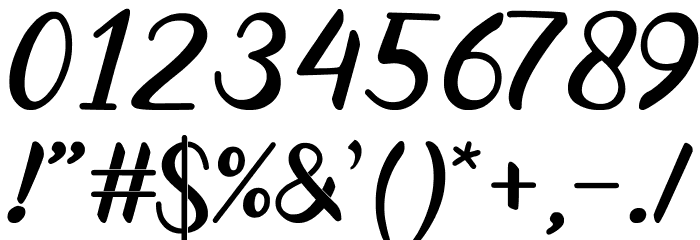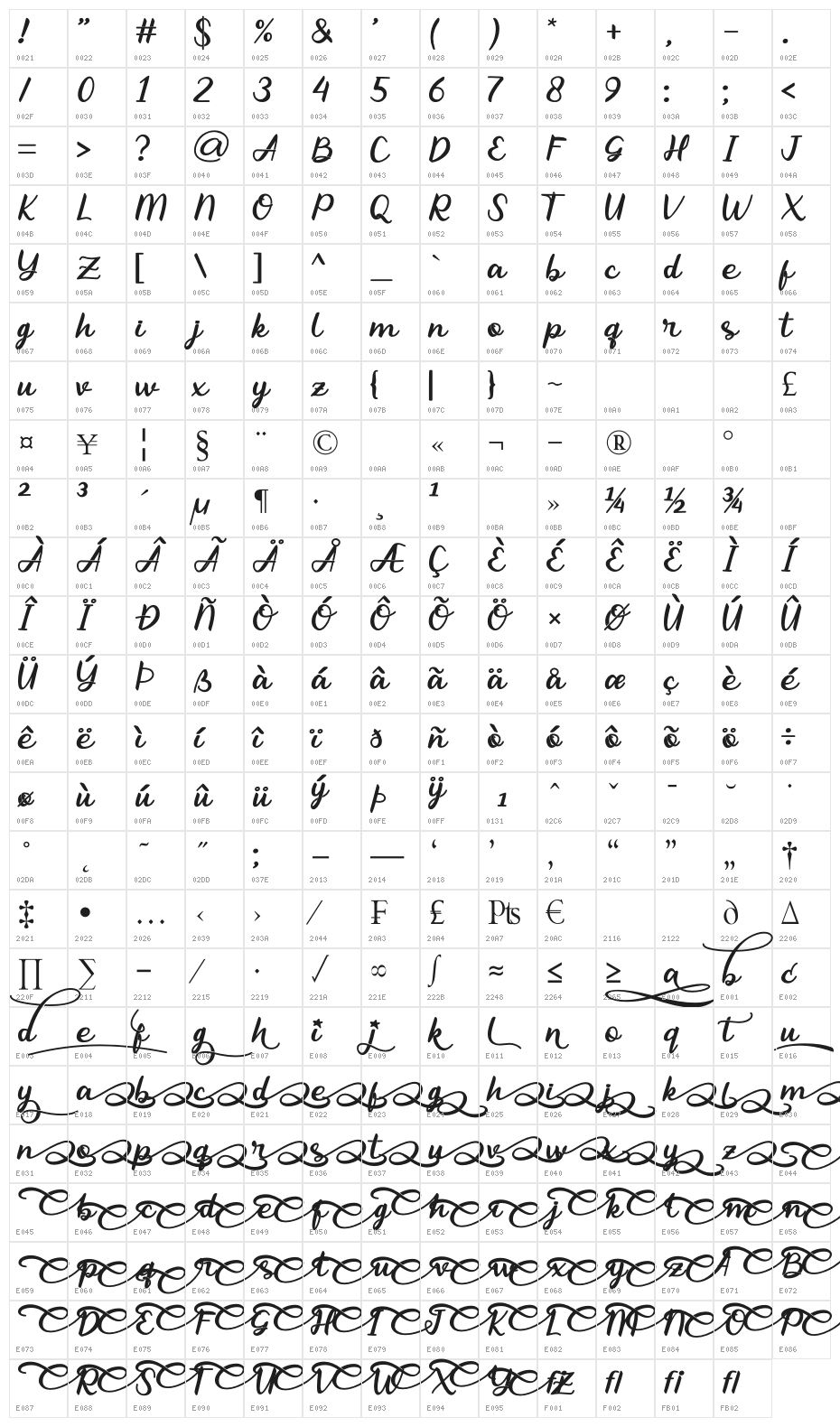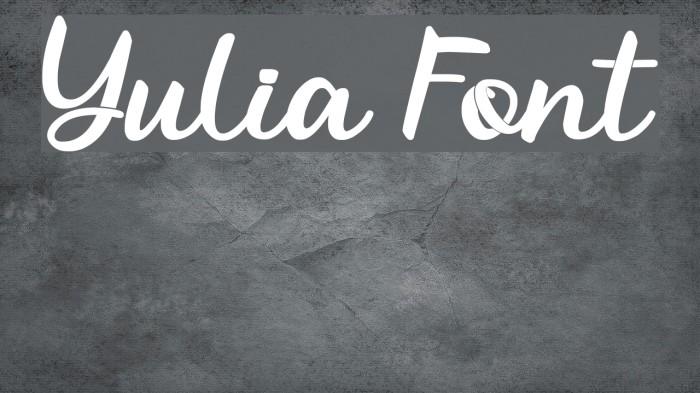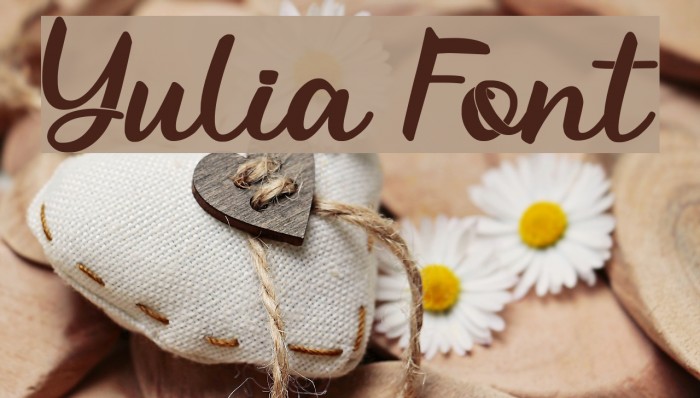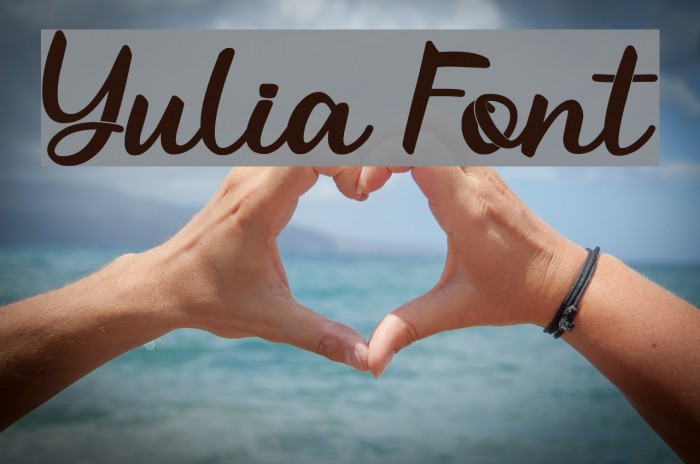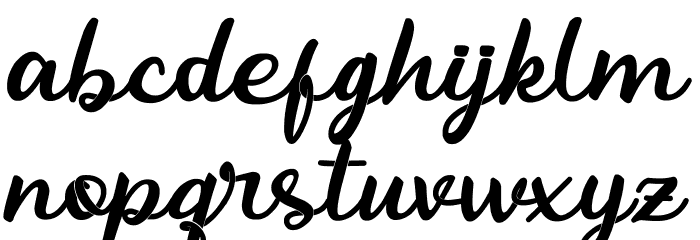
Yulia Font
Yulia Description
This font features a dynamic and flowing script style, characterized by its elegant and cursive letterforms. The uppercase letters exhibit a graceful, sweeping motion with a slight slant, while the lowercase letters maintain a consistent flow, enhancing readability. The numerals are bold and slightly rounded, complementing the overall script aesthetic. Special characters are designed with the same fluidity, ensuring a cohesive look across all glyphs. The font's design is both sophisticated and approachable, making it suitable for a variety of creative applications.